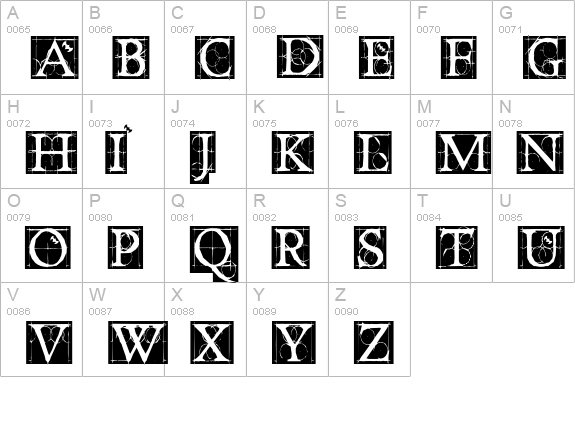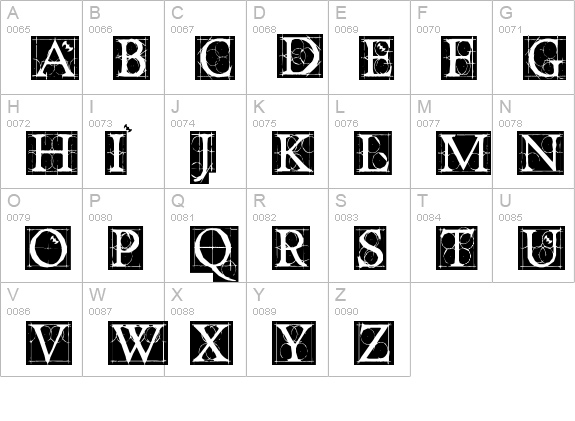
DancingVampyrish Font Details
Introducing DancingVampyrish, a captivating and enchanting font that exudes an air of mystery and elegance. Designed with intricate details and delicate strokes, this font embodies the essence of a graceful dancer, effortlessly gliding across the stage. Its unique and mesmerizing curves bring a touch of allure and sophistication to any design project. DancingVampyrish is not only visually captivating but also highly versatile, making it suitable for a wide range of applications. Whether you're designing invitations for a glamorous event, creating striking logos for a high-end brand, or adding a touch of sophistication to your website, this font is sure to make a lasting impression. But the best part? DancingVampyrish is completely free! That's right, you can freely download this extraordinary font at FontsMarket.com. No need to worry about breaking the bank or sacrificing quality, as this font offers the perfect combination of elegance and affordability. With DancingVampyrish, you'll have the power to create stunning designs that leave a lasting impact. Its graceful and captivating presence will elevate your projects to new heights, making a statement that is both sophisticated and memorable. So why wait? Unlock the enchantment of DancingVampyrish and let your creativity take flight. Download this extraordinary font for free at FontsMarket.com and embark on a design journey filled with elegance, allure, and limitless possibilities.